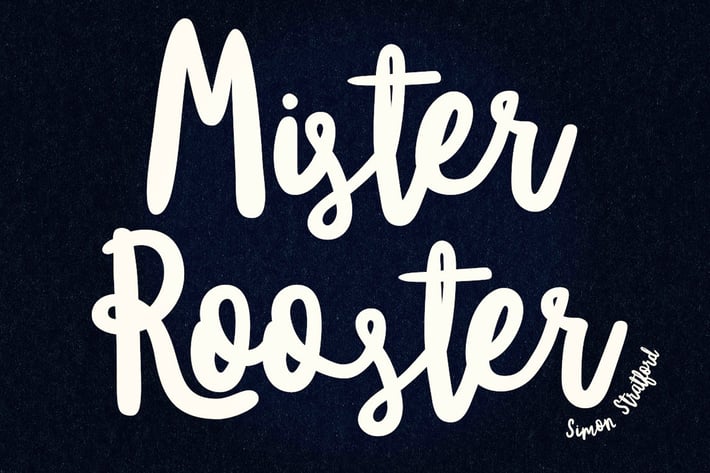
Mister Rooster font
Mister Rooster was created using my graphics tablet in illustrator.
It doesn't have the complexity of a real pen, but retains the hand drawn look and feel. It has much simpler paths so should be super quick and easy to work with.
It looks a bit quirky as the letters are playing along the baseline. Some characters are just plainly ignoring it all together. Capital letters don't line up as you would expect, some are taller, some are fatter. I think that just adds to its appeal.
The uppercase letters look good just by themselves. I like to use all caps combined with sentence case to get that real quirky, playful feeling.
Ideal for any design work where you want that handmade touch.
The font has a ton of ligatures to make the letters join correctly plus a few initial and terminal forms.